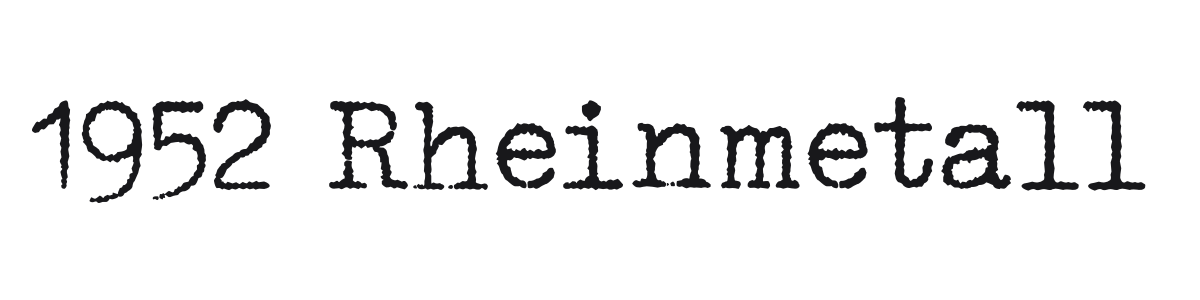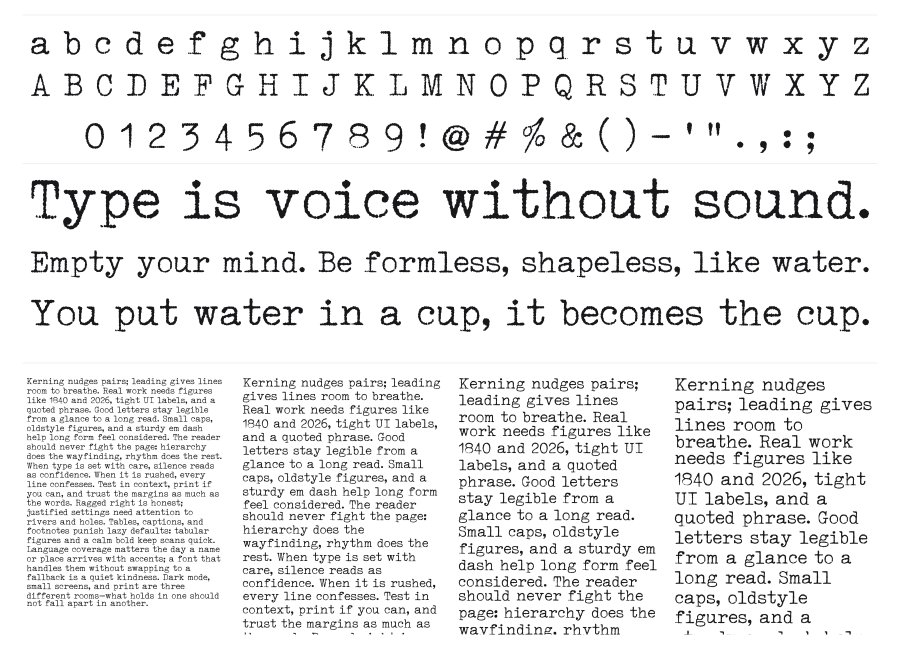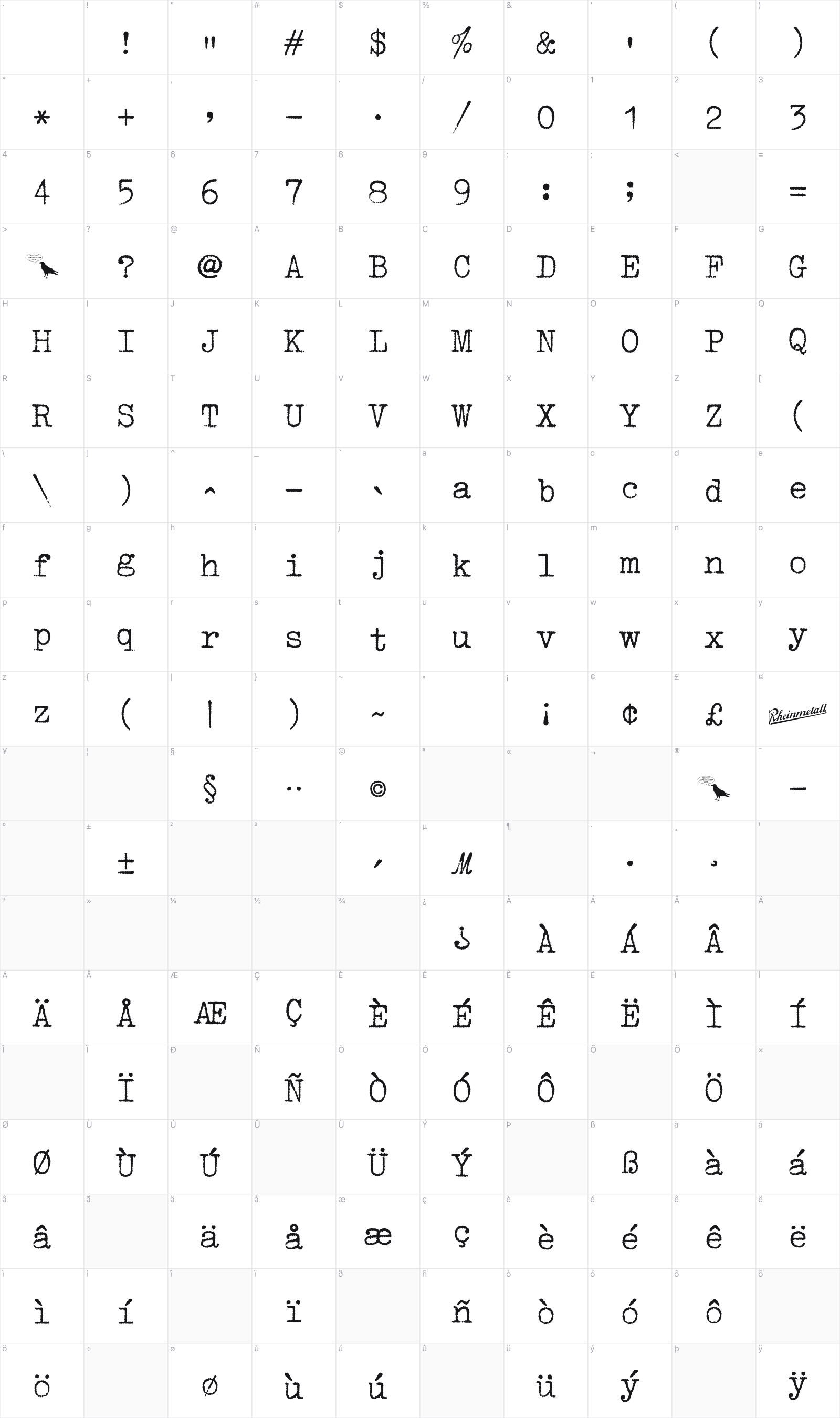
1952 Rheinmetall
1952 Rheinmetall is a vintage typewriter font modeled on the look of a mid-century mechanical typewriter, complete with subtle ink texture and slight character irregularities. The slab serifs and near-uniform stroke weight faithfully capture the rhythm of typed text from the early 1950s. It works best at display sizes where the worn, mechanical quality reads as authenticity rather than noise.